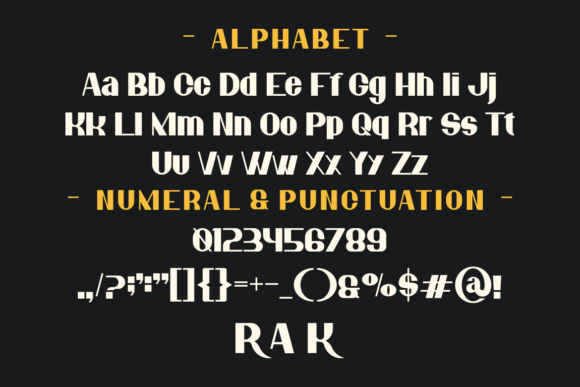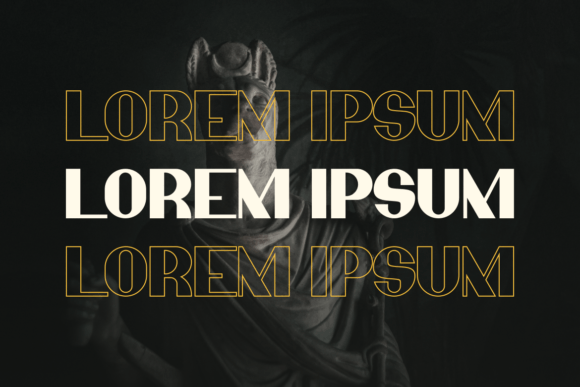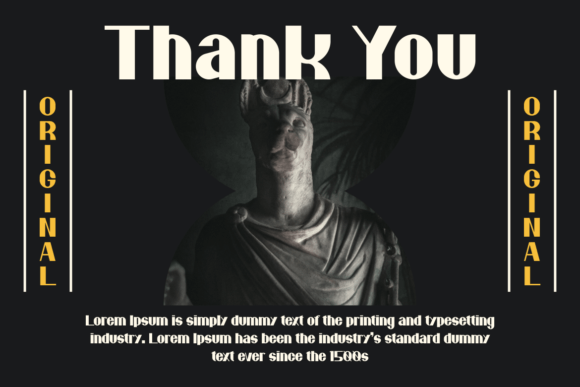
Bearus Font: Elevate Your Craft with Modern Style
In the world of design, typography plays a crucial role in making your product stand out from the competition. A well-chosen font can elevate your craft, convey your brand’s message, and leave a lasting impression on your audience. If you’re looking for a modern and stylish sans serif font that can enhance your design with little effort, look no further than Bearus Font.
What is Bearus Font?
Bearus is a contemporary sans serif font designed to bring a touch of sophistication and elegance to your designs. Its clean lines, simple shapes, and balanced proportions make it an excellent choice for a wide range of applications, from branding and advertising to packaging and digital media.
Key Features of Bearus Font
- Modern and Stylish: Bearus boasts a sleek and modern design that’s perfect for brands looking to make a statement.
- Easy to Read: The font’s clear and simple letterforms ensure excellent readability, even at small sizes.
- Highly Versatile: Bearus is suitable for a variety of design applications, including headings, body text, and more.
- Extensive Character Set: The font includes a wide range of characters, symbols, and glyphs to support multiple languages.
Benefits of Using Bearus Font
- Experiment with Different Sizes: Bearus looks great at a variety of sizes, from large headings to small body text.
- Play with Colors: The font’s simple design makes it easy to pair with a wide range of colors and textures.
- Mix and Match: Combine Bearus with other fonts to create unique and interesting typography.
In conclusion, Bearus Font is a modern and stylish sans serif font that’s perfect for designers and crafters looking to elevate their craft with little effort. Its clean design, excellent readability, and versatility make it an excellent choice for a wide range of applications. Whether you’re a graphic designer, digital designer, or crafter, Bearus Font is sure to enhance your product and make it stand out from the competition.